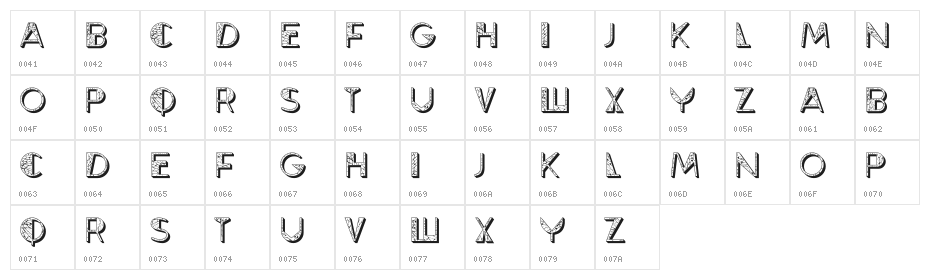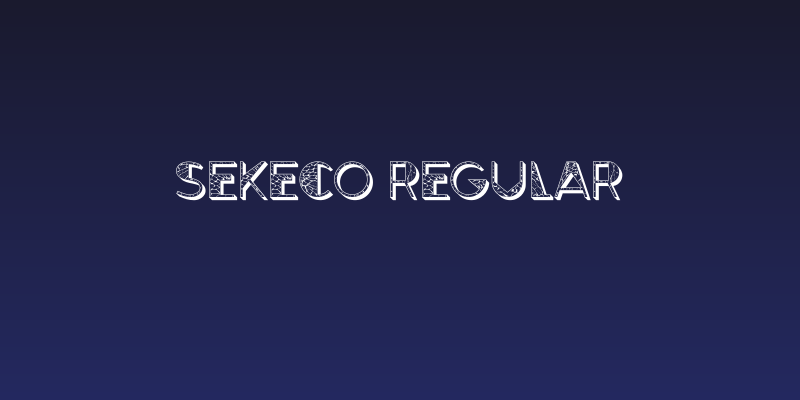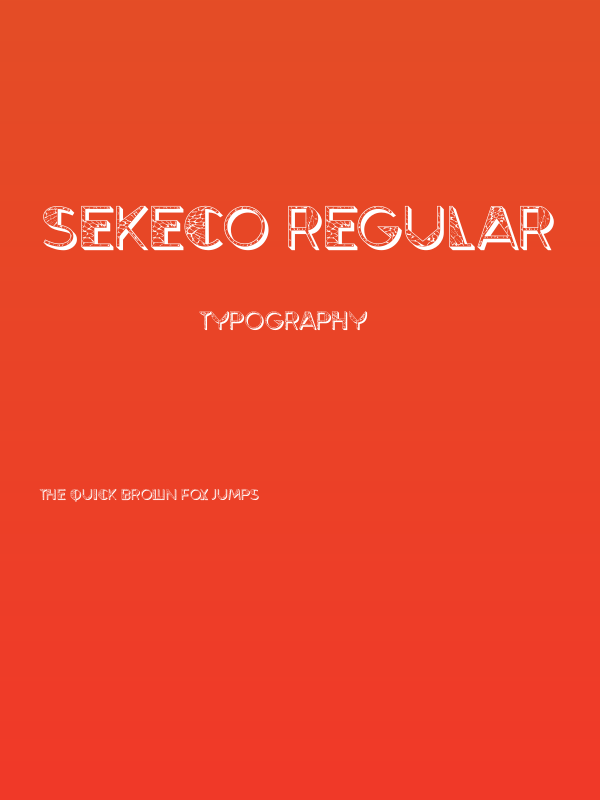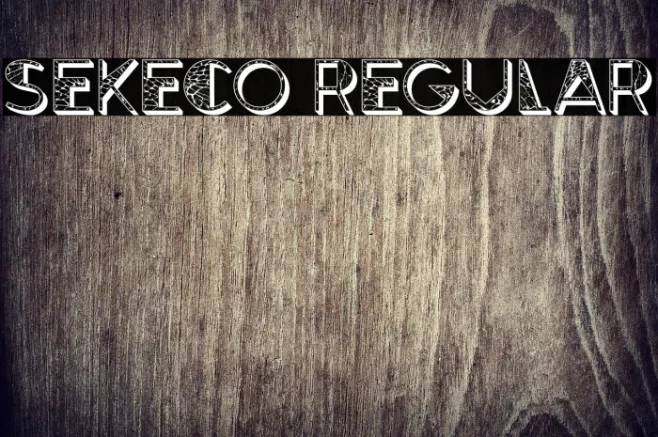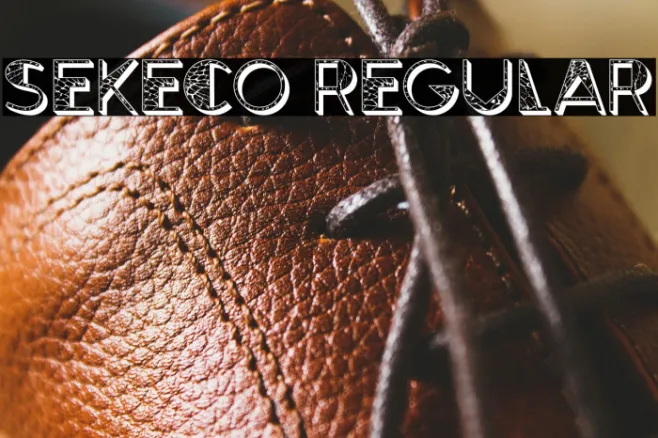
Sekeco Regular Font
Sekeco Regular Description
This font features a bold and decorative style with a unique geometric pattern filling each letter. The characters are outlined with a solid black stroke, giving them a three-dimensional appearance. The intricate design within each letter adds a textured look, making it stand out for creative projects. The uppercase letters are consistent in height and width, providing a balanced and cohesive look. This font is ideal for eye-catching designs where a strong visual impact is desired.
| Proposed Projects | Ideal for posters, logos, branding, and any project requiring a striking visual element. |